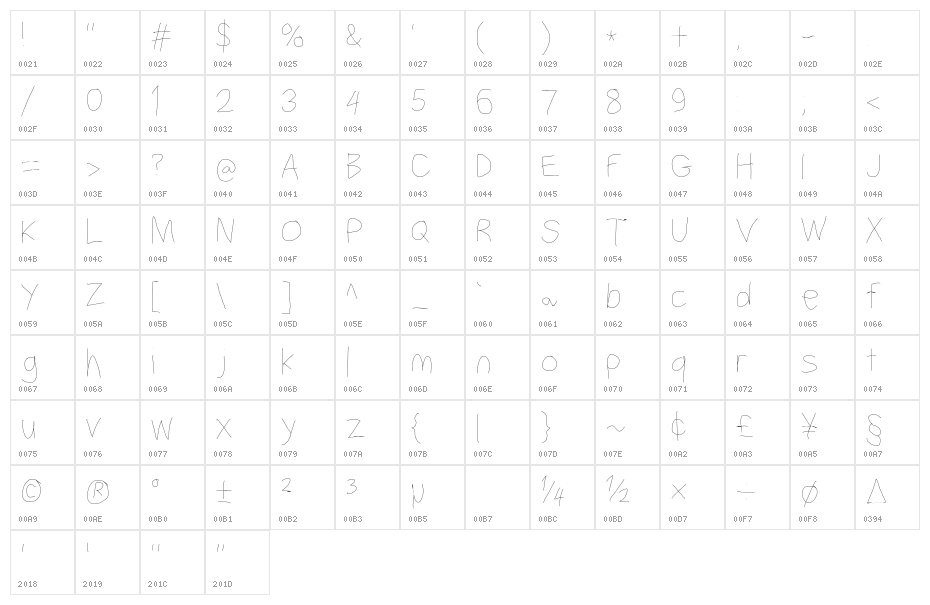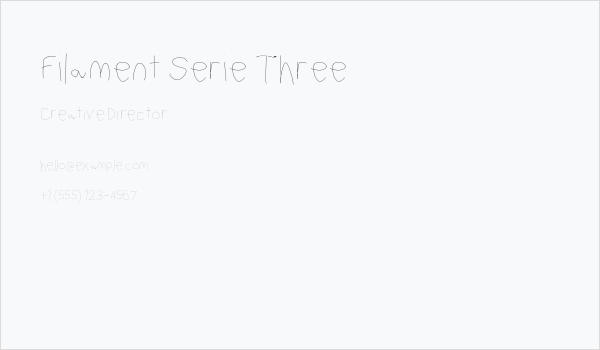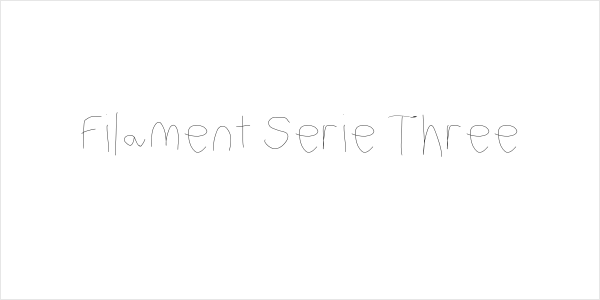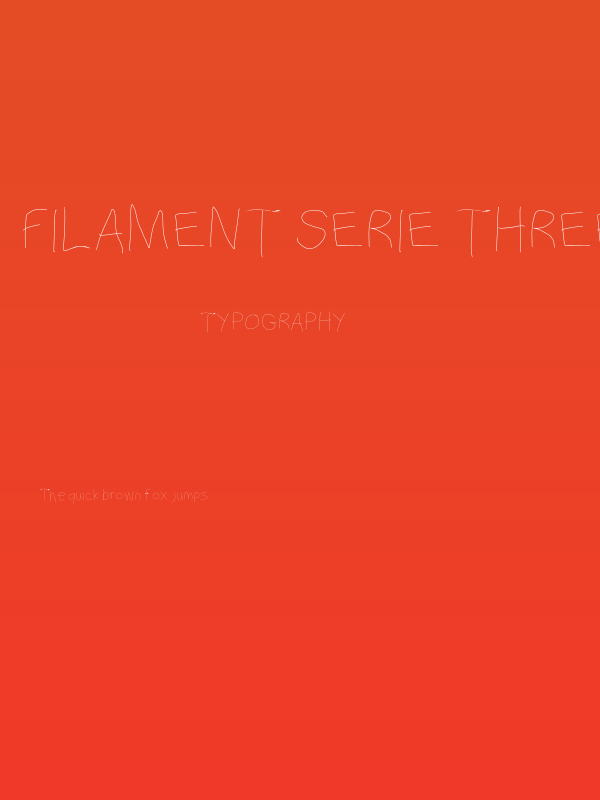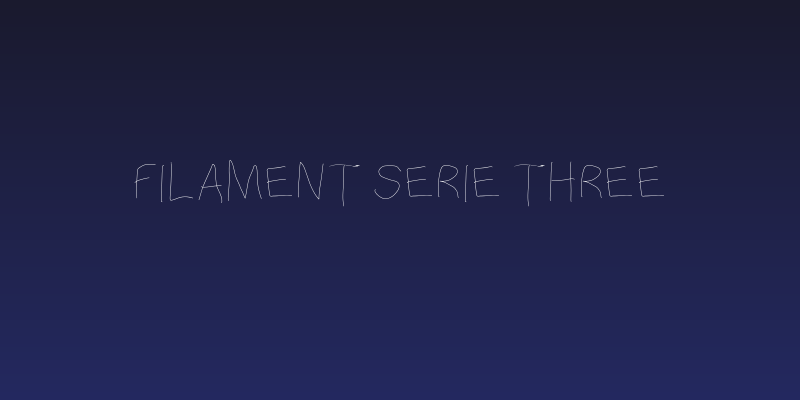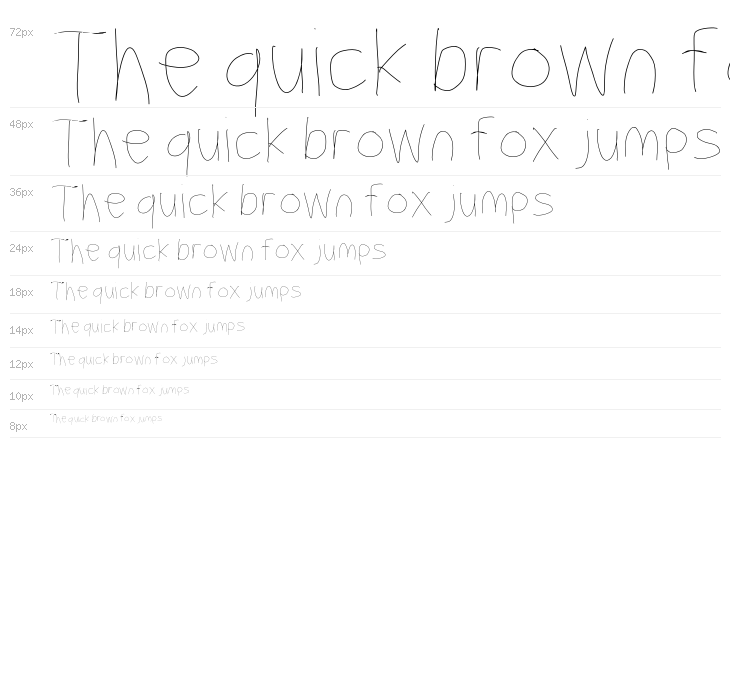
Filament Serie Three Font
Filament Serie Three Description
This font features a delicate, hand-drawn style that mimics the appearance of fine penmanship. The characters are thin and slightly irregular, giving a personal and informal touch. Uppercase and lowercase letters are distinct, with a playful yet elegant flair. The numbers maintain the same whimsical quality, ensuring consistency across all characters. Special characters are included, each crafted with the same attention to detail. This font's light strokes and airy design make it ideal for projects that require a personal, handwritten feel.
Use CaseLogos, Invitations, Greeting Cards
Proposed ProjectsIdeal for personal notes, invitations, greeting cards, or any project that benefits from a handwritten aesthetic.